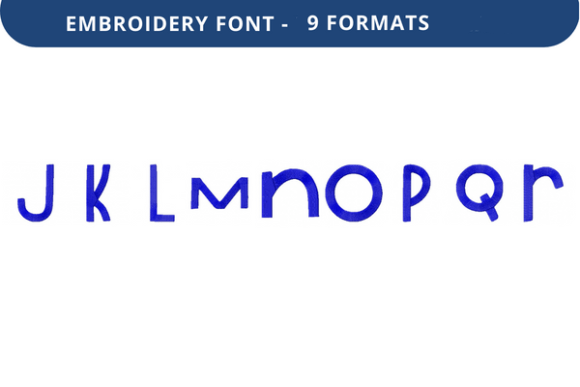
Taffy Luck Font J to R
Taffy Luck Font J to R is a standout choice for anyone looking to add a touch of charm and personality to their design projects. This premium embroidery font blends the elegance of serif typography with the fluidity of script, making it versatile enough to suit a wide range of creative applications. Its warm, handcrafted feel brings a sense of nostalgia and authenticity to any project, whether you're crafting a custom logo, designing packaging, or personalizing gifts.
What Makes Taffy Luck Font J to R Unique?
The visual appeal of Taffy Luck Font J to R lies in its delicate yet bold strokes and consistent flow. Each letter maintains a playful yet refined character, with subtle flourishes that give it a handwritten aesthetic without sacrificing readability. The fontās soft curves and rounded edges create a welcoming and approachable vibe, making it ideal for both personal and commercial use.
As a display font, Taffy Luck J to R excels in capturing attention while maintaining a level of sophistication. Its unique style allows it to stand out in editorial layouts, social media graphics, and branding materials. Whether used as a primary typeface or an accent, this font adds a distinctive flair that can elevate the overall design.
Where Does Taffy Luck Font J to R Shine?
Taffy Luck Font J to R works best in projects where a personal touch is essential. For instance, it's perfect for wedding invitations, baby shower cards, and birthday bannersāwhere the warmth of the font complements the occasion. It also pairs well with modern typography in web design and digital marketing, offering a balance between traditional and contemporary aesthetics.
- Branding: Ideal for logos, taglines, and brand assets that require a memorable and stylish presence.
- Packaging Design: Adds a charming, artisanal feel to product labels, gift boxes, and promotional materials.
- Social Media Graphics: Enhances visual storytelling with its elegant and engaging style.
- Editorial Design: Works well in magazine covers, book titles, and newsletter headers.
- Personal Projects: Perfect for DIY crafts, fabric art, and custom gifts.
How Taffy Luck Font J to R Influences Design
The impact of Taffy Luck Font J to R extends beyond its appearanceāit plays a crucial role in shaping how your audience perceives your brand or message. Its warm and inviting nature fosters a sense of trust and familiarity, which is especially valuable in marketing and publishing contexts.
By incorporating this font into your design toolkit, you can enhance visual hierarchy and guide the readerās eye through your content. The fontās legibility ensures that even at smaller sizes, it remains clear and easy to read, which is essential for both print and digital formats. Additionally, its versatility allows for seamless integration into various design workflows, from logo creation to social media campaigns.
Choosing the Right Font for Your Project
When selecting Taffy Luck Font J to R for a specific project, consider the following factors:
- Project Purpose: Determine if the font will be used for branding, advertising, or personal use.
- Target Audience: Ensure the font aligns with the tone and expectations of your audience.
- Font Pairing: Experiment with complementary fonts to create a balanced and cohesive design.
- Readability: Test the font in different sizes and backgrounds to ensure clarity.
For example, pairing Taffy Luck Font J to R with a clean sans-serif font like Montserrat can create a striking contrast that highlights the elegance of the script while maintaining professionalism.
Practical Tips for Using Taffy Luck Font J to R
To get the most out of Taffy Luck Font J to R, start by exploring its included styles and variations. The font comes with multiple embroidery file formats, ensuring compatibility with a wide range of machines and software. This flexibility makes it accessible to both beginners and experienced designers.
When working on a project, always review the fontās performance in different contexts. For instance, test how it looks on fabric versus a digital screen. Pay attention to spacing, alignment, and scaling to maintain consistency across all platforms.
Additionally, consider the emotional impact of the font. Its friendly and approachable nature makes it particularly effective for brands that prioritize connection and community. Whether youāre creating a personalized gift or a professional logo, Taffy Luck Font J to R offers a unique way to express your creativity and values.
Real-World Applications
One practical application of Taffy Luck Font J to R is in the world of small business branding. A local bakery might use it for signage, packaging, and social media posts to create a cohesive and recognizable brand identity. Similarly, a boutique clothing line could incorporate the font into product tags and website headers to reinforce a handmade, artisanal image.
Conclusion
Taffy Luck Font J to R is more than just a design assetāitās a tool for storytelling, branding, and creative expression. With its blend of elegance and approachability, it has the power to transform simple designs into meaningful and memorable experiences. Whether you're a designer, marketer, or hobbyist, this font offers a unique opportunity to bring your vision to life with style and substance.